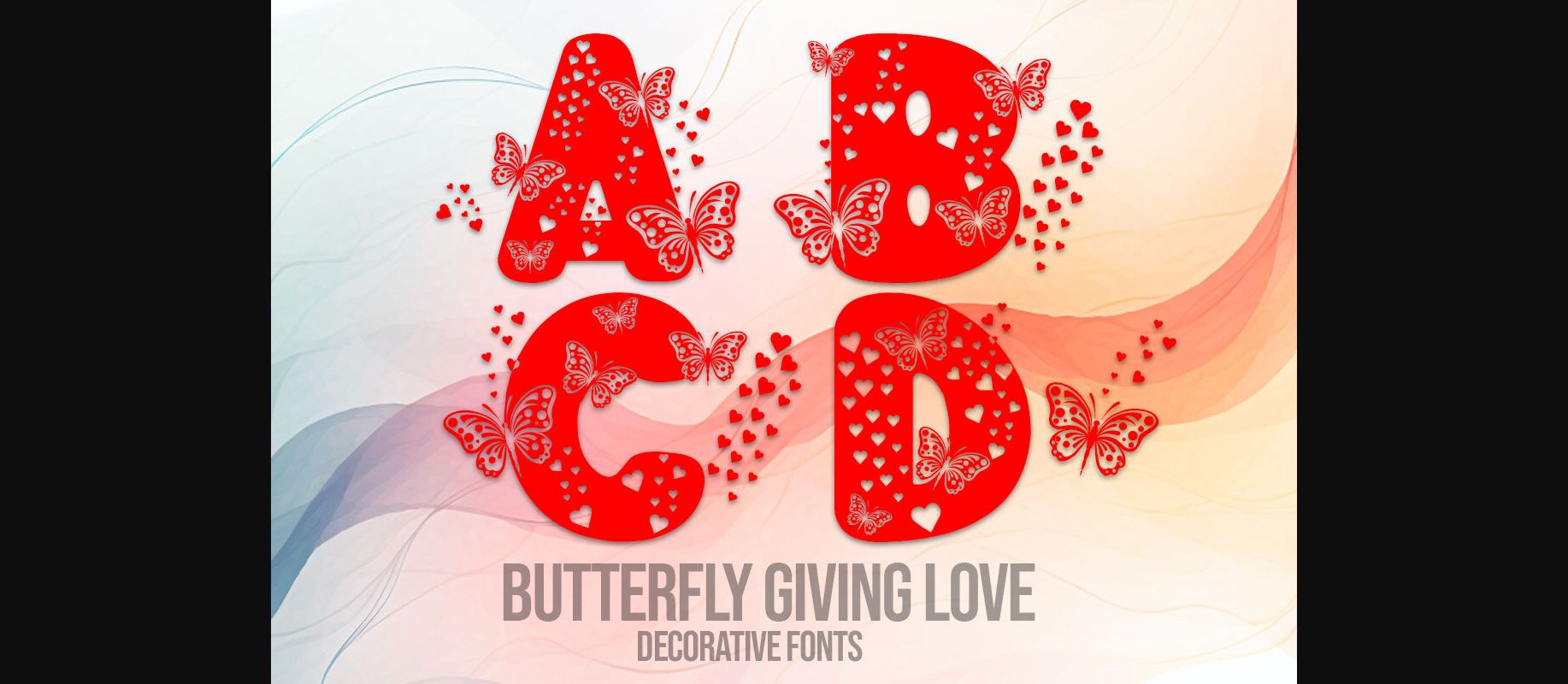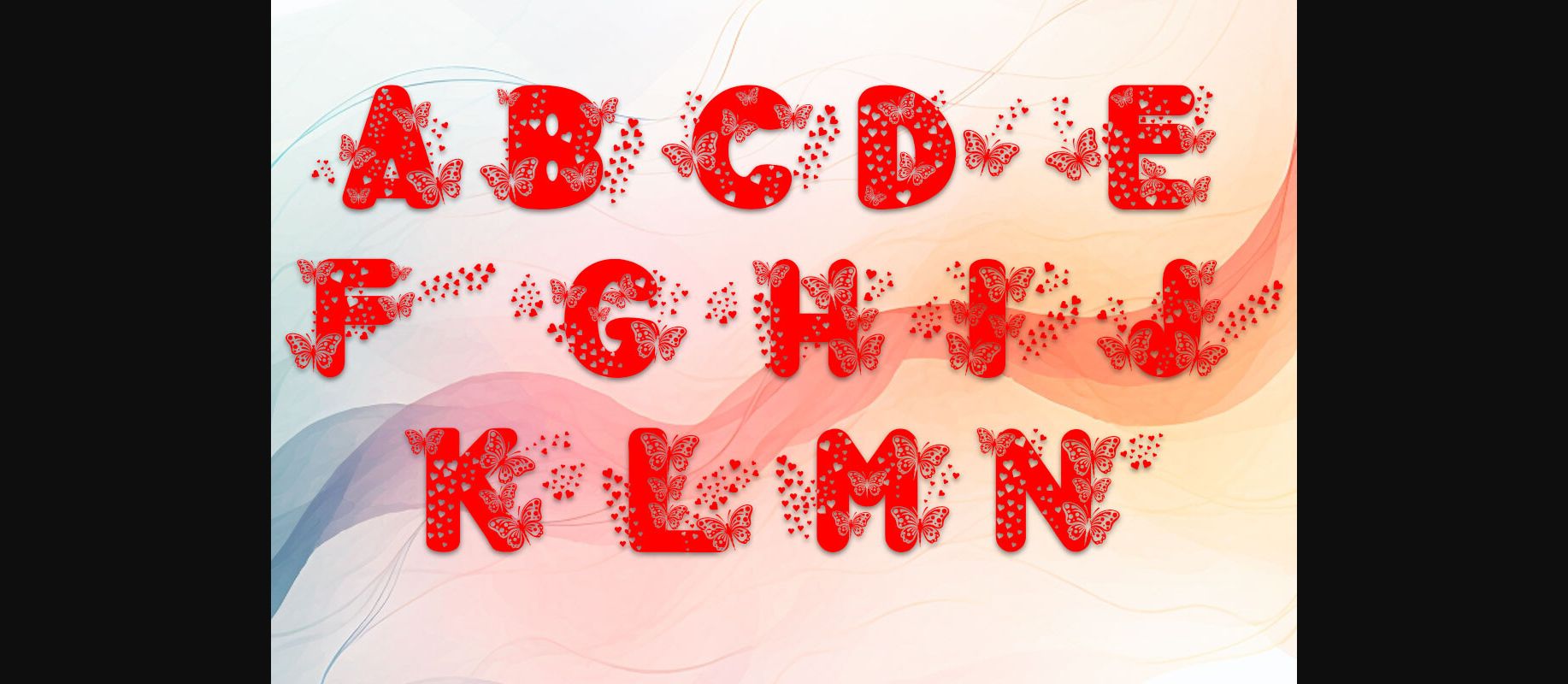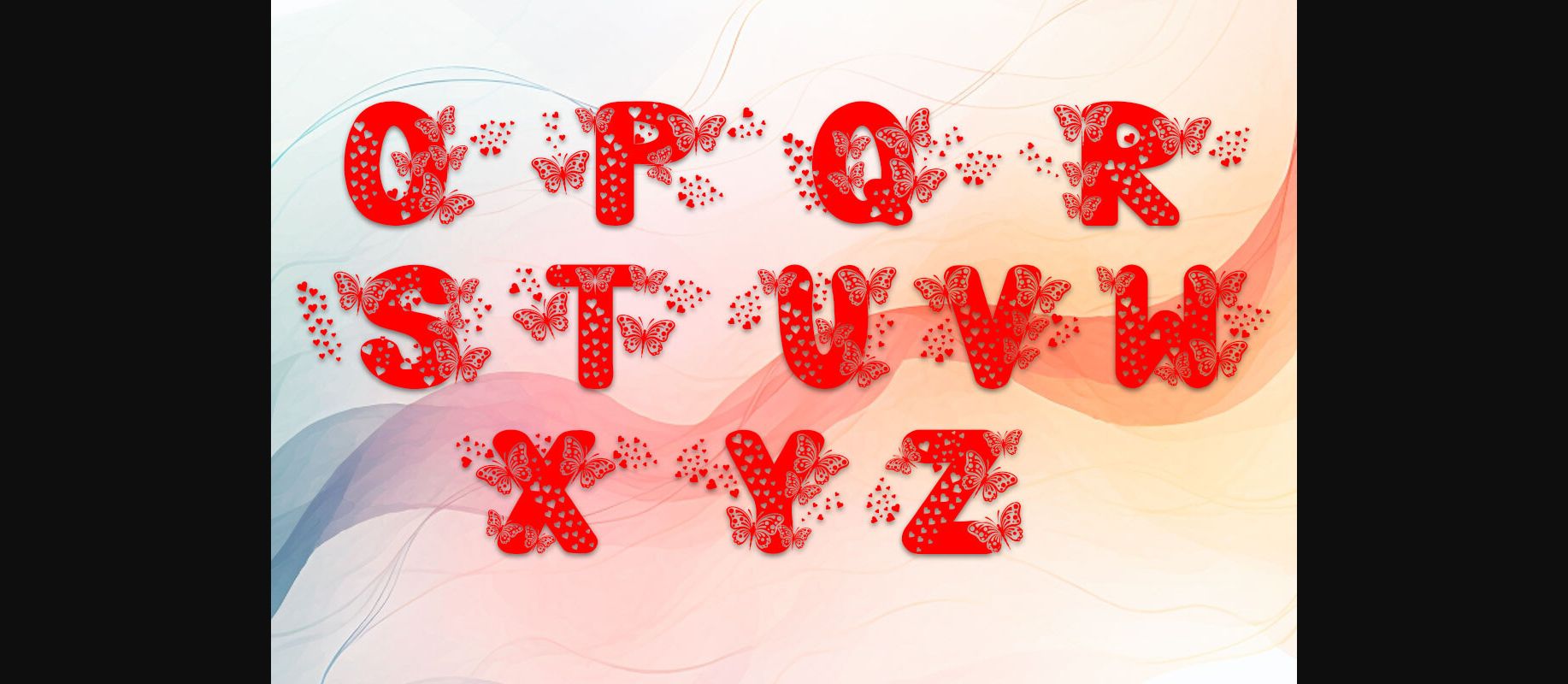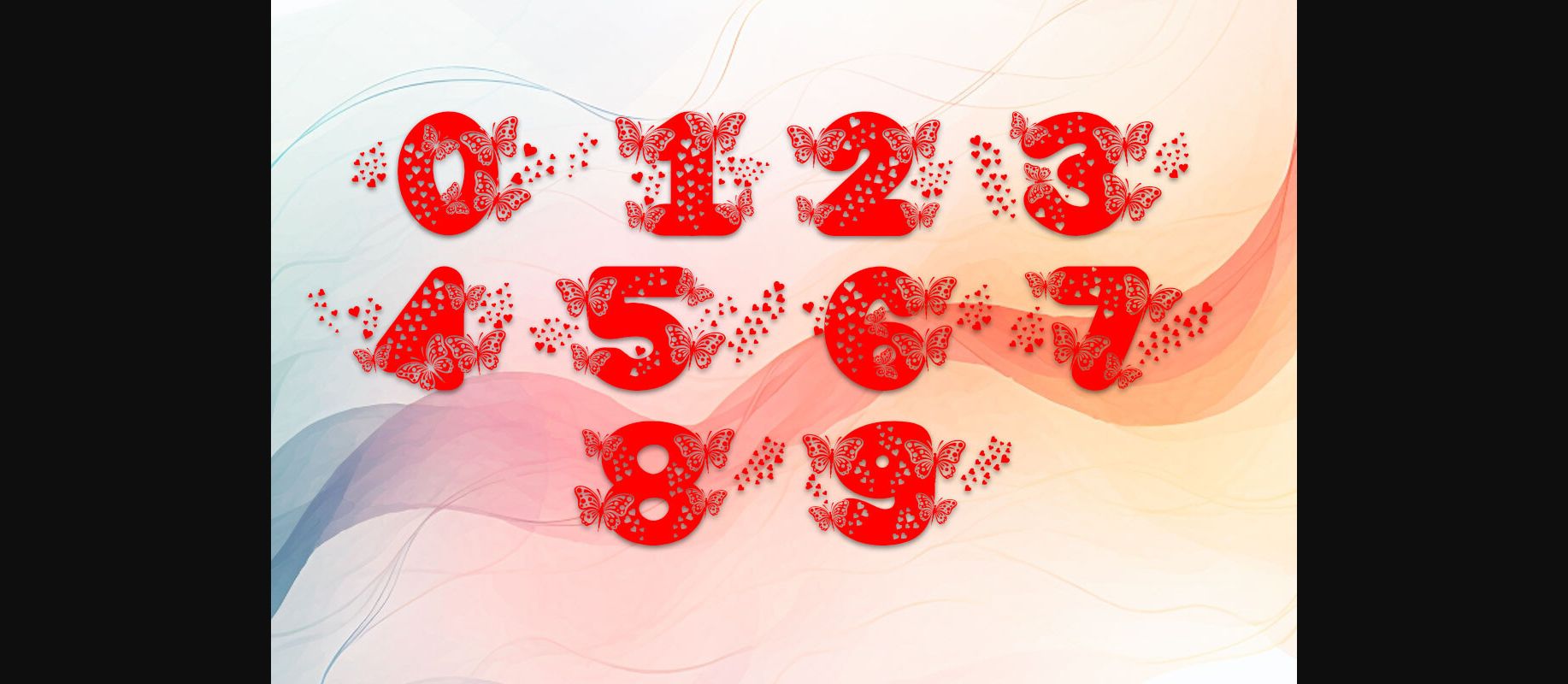
Butterfly Giving Love Font
About Butterfly Giving Love Font
Introducing Butterfly Giving Love Decorative Fonts – a captivating collection featuring uppercase letters from A to Z and numbers 0 to 9. Crafted with artistic elegance, these fonts symbolize the essence of love and grace. Perfect for adding a touch of warmth and charm to your designs, projects, or creative endeavors. Elevate your typography with this enchanting collection inspired by the beauty of butterflies and the essence of giving love.